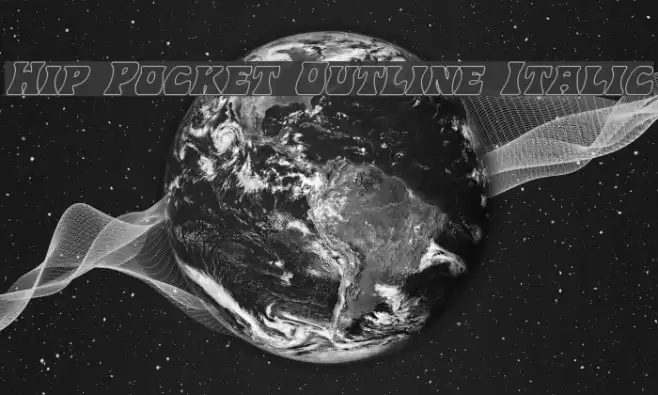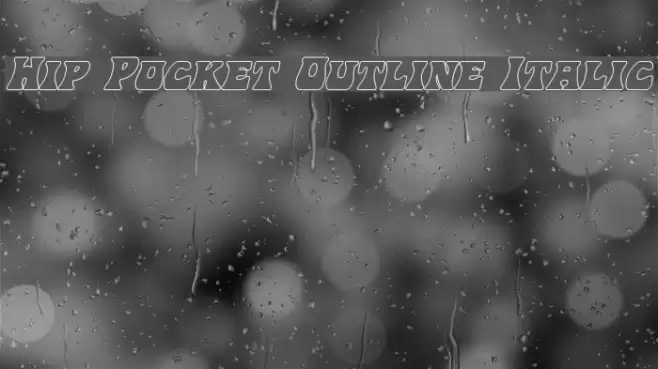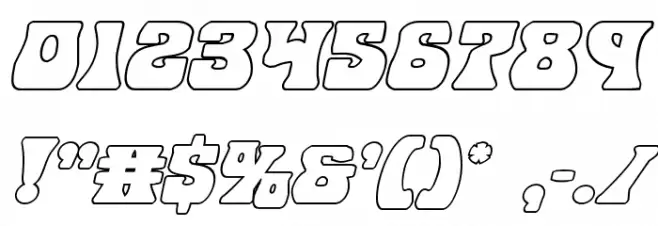
Hip Pocket Outline Italic Font
Hip Pocket Outline Italic Description
This font features a bold, playful outline style with a distinct italic slant, giving it a dynamic and energetic appearance. The characters are well-defined with thick outlines that create a strong visual impact. The uppercase and lowercase letters maintain a consistent style, with rounded edges and a slightly condensed form. The numerals and special characters follow the same design principles, ensuring uniformity across all glyphs. This font's unique outline and italicized form make it stand out, suitable for creative and eye-catching designs.
A bold, italic outline font with a playful and dynamic style from Uncategorized fonts.
- Proposed Projects: Ideal for posters, logos, and headlines that require a bold and energetic look.